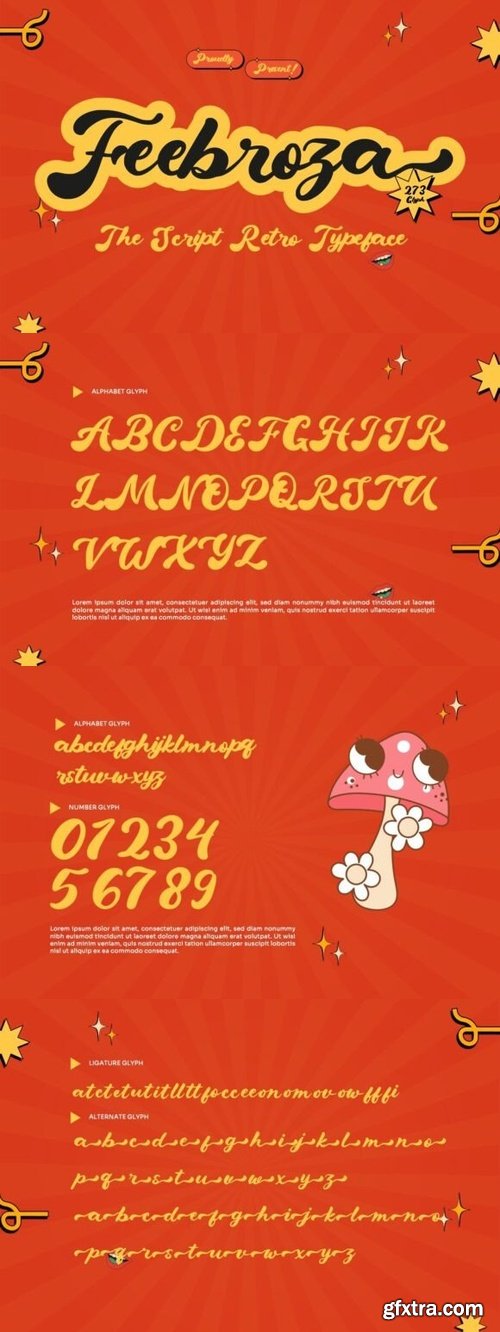
Feebroza Font
- Feebroza is a stunning retro script font with an elegant and dynamic flow. Its smooth, handwritten curves capture the essence of vintage advertising and poster designs, making it a versatile choice for branding, logos, invitations, and more. Feebroza combines retro charm with contemporary functionality.